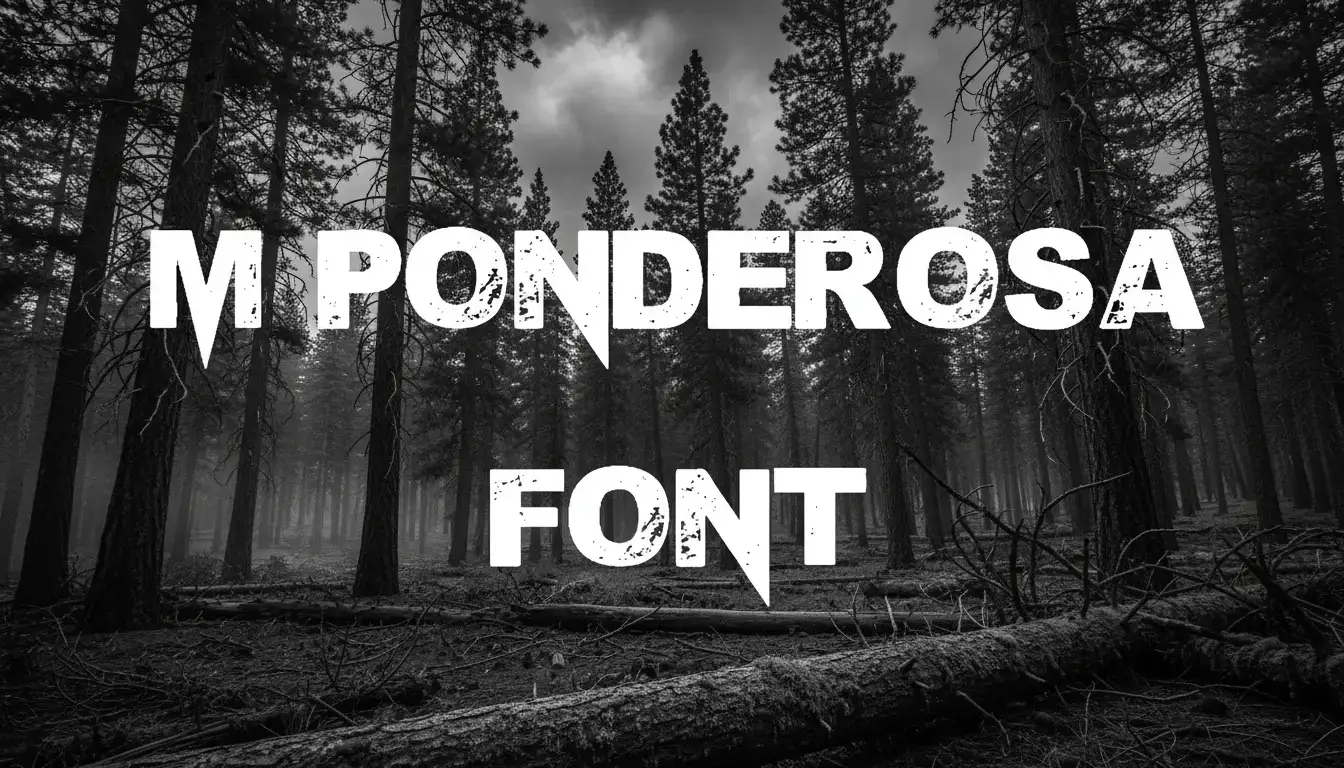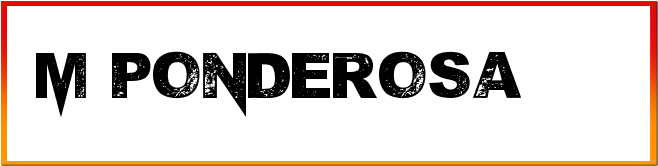
M Ponderosa Font
M Ponderosa Font Preview
M Ponderosa
M Ponderosa Character Map
M Ponderosa is a fancy font designed by Chris Vile and published by Fonts Chris Vile. Bold and full of character, it's built to stand out rather than blend in. You can download it for free and test it with your own words in the preview above.
M Ponderosa Font Details
What You Can Type With M Ponderosa
With complete upper and lowercase letters and all ten digits, M Ponderosa is ready for real wording, not just a single headline. Everyday marks like &, !, ? and @ are there too. There are no accented letters like é or ñ, so it's best kept to English text.
Where M Ponderosa Works Best
M Ponderosa is a natural fit for posters, logos and eye-catching headlines. Use it for one standout word or headline and let simpler fonts handle the rest.
Does M Ponderosa support accented letters?
No. M Ponderosa has no accented letters such as é, ñ or ü, so it's best for English text.